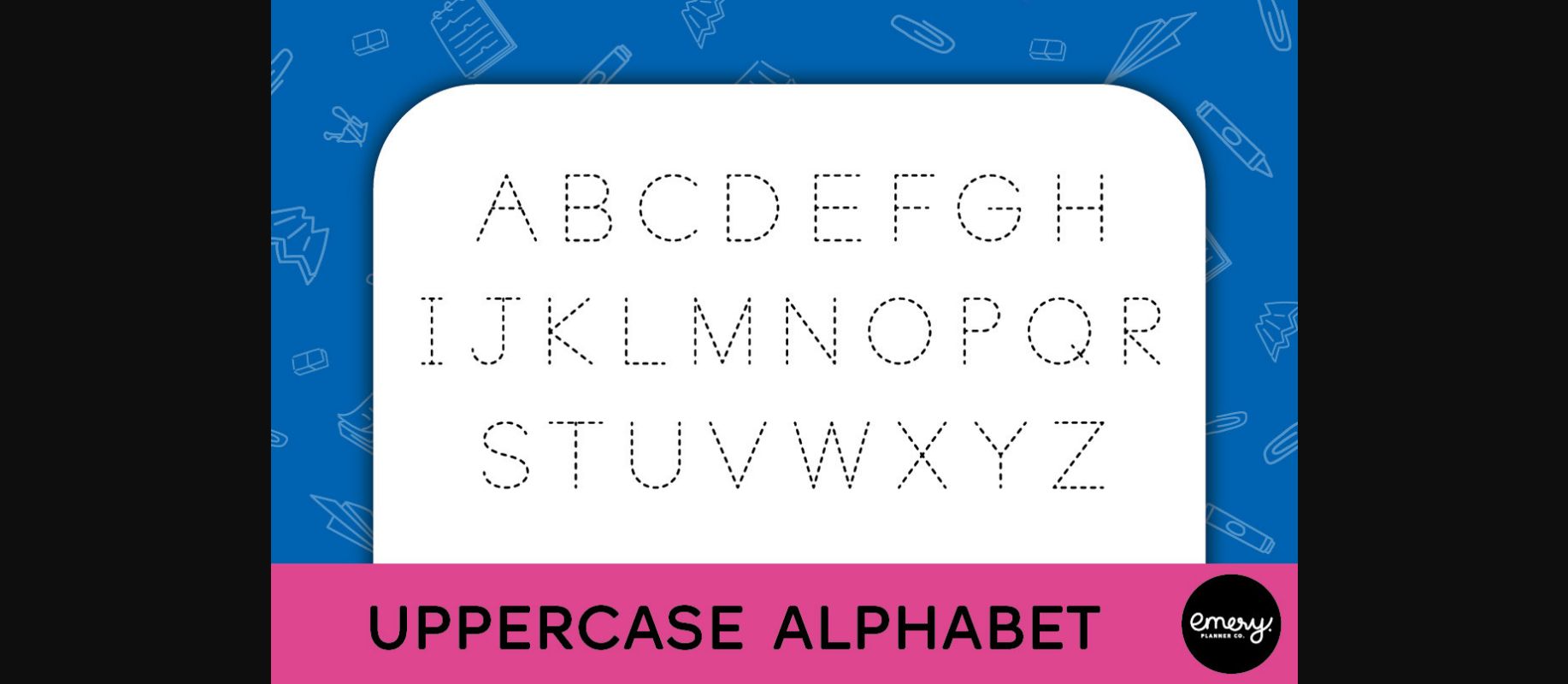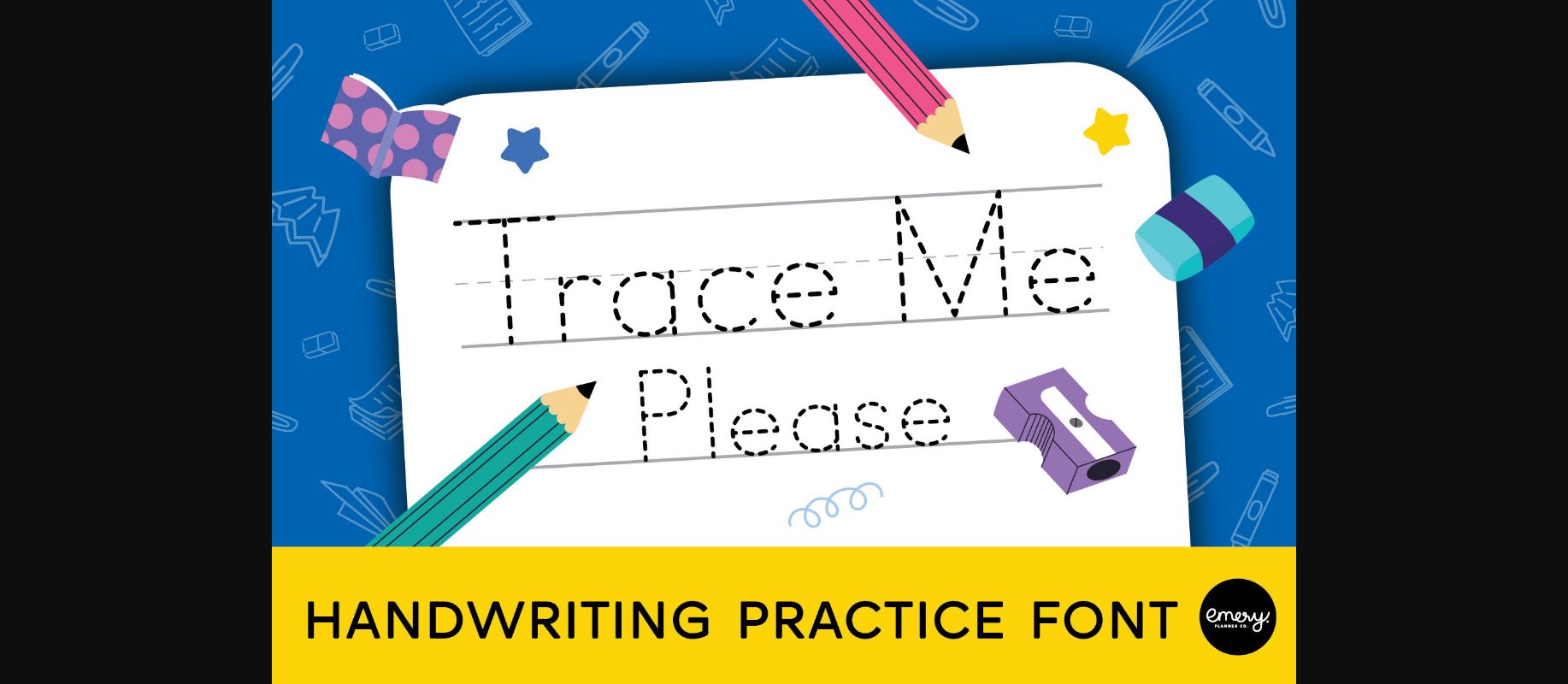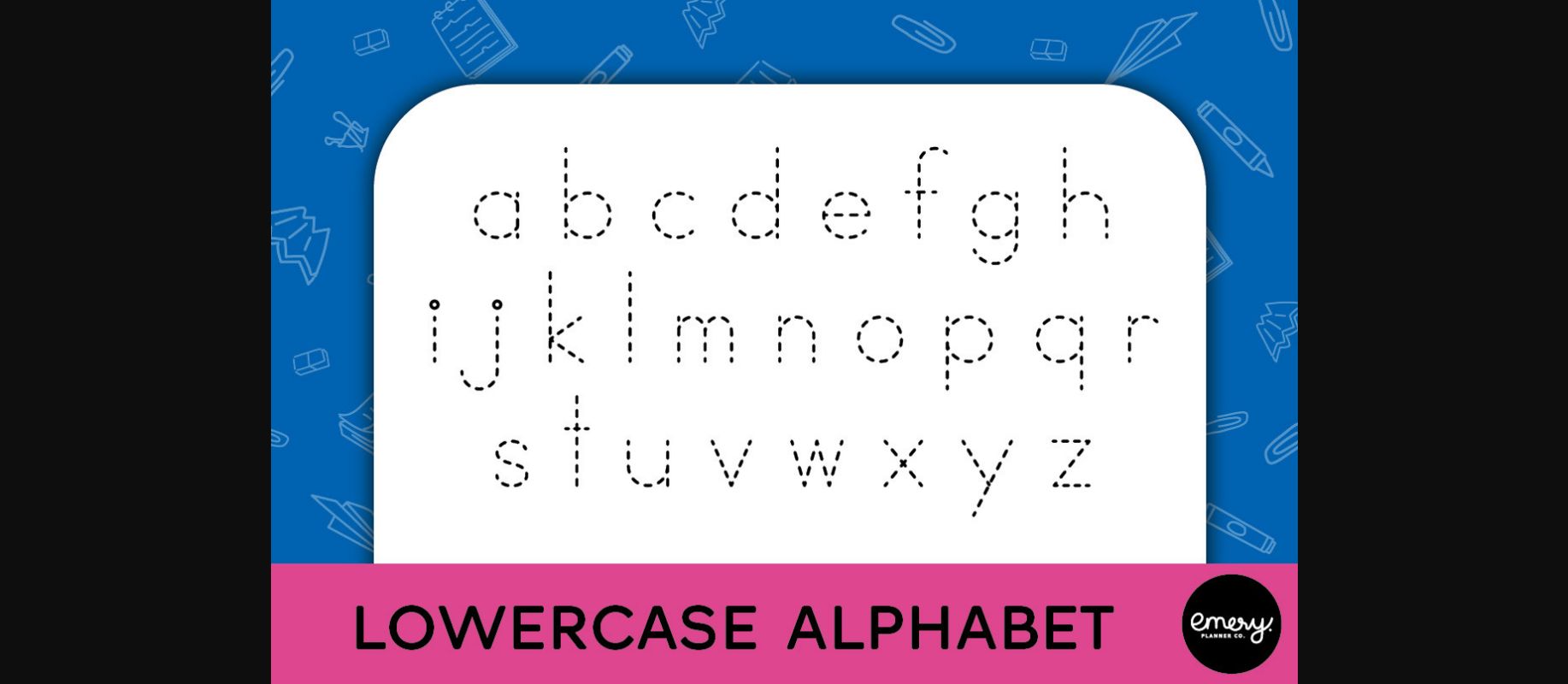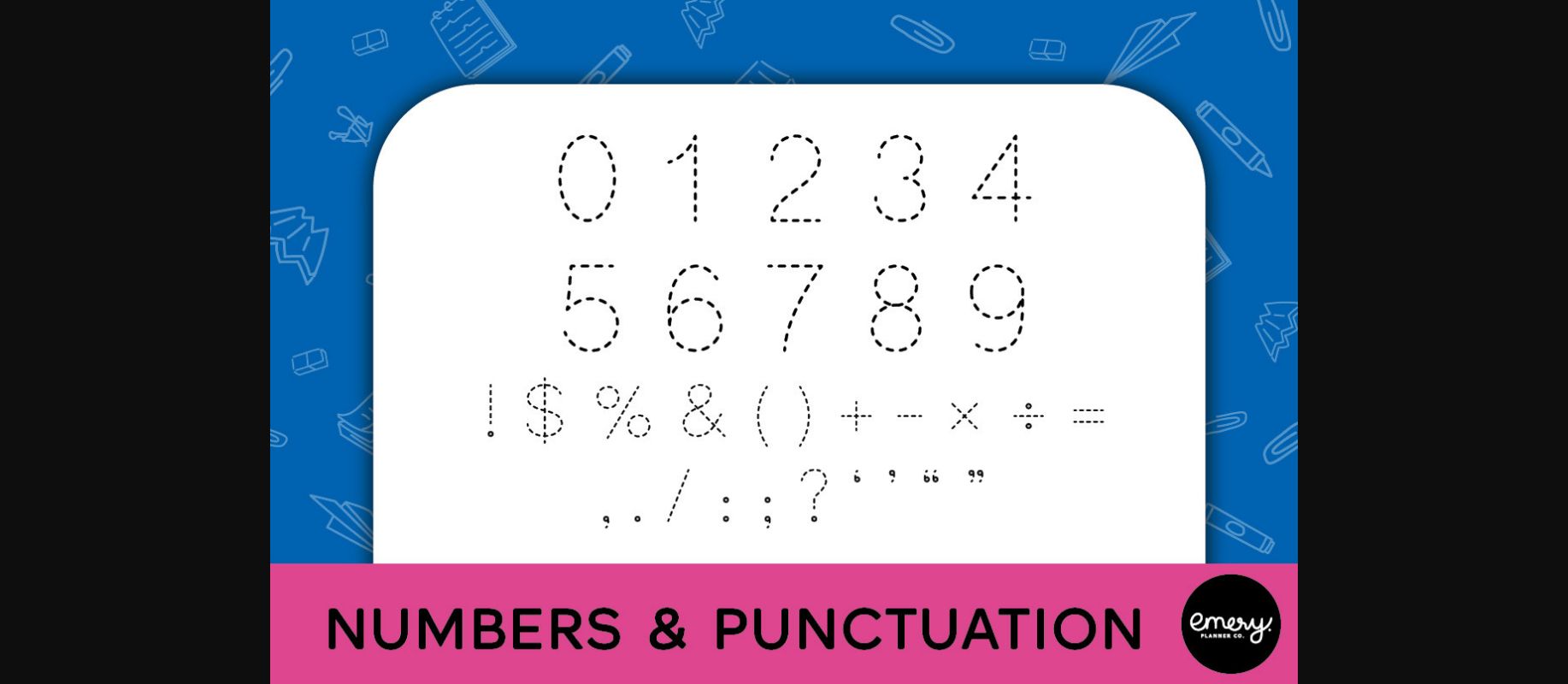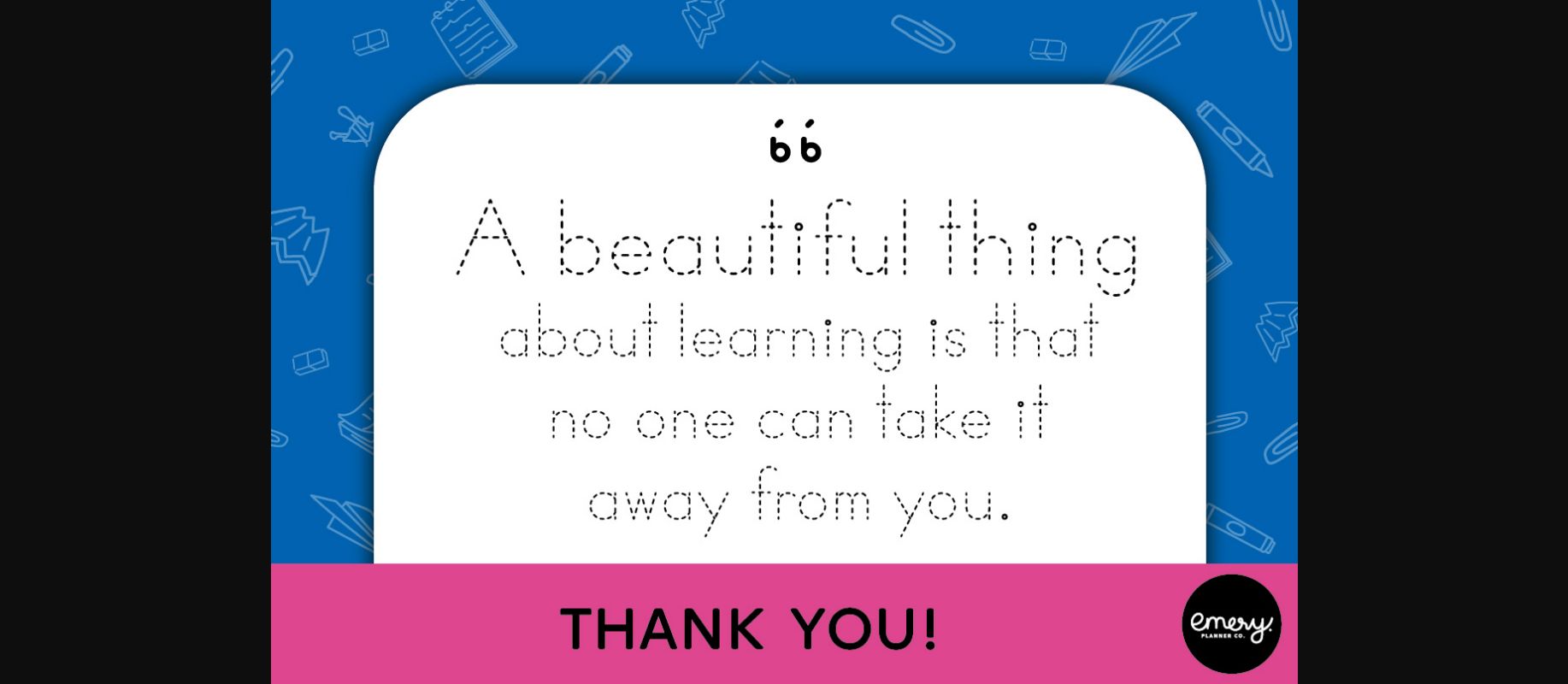
About Trace Me Please Font
Let children learn letter formation with this Trace Me Please font.
✔ Perfect for writing practice and proper letter formation.
✔ Create your own worksheets and education resources.
✔ Perfect for writing practice and proper letter formation.
✔ Create your own worksheets and education resources.